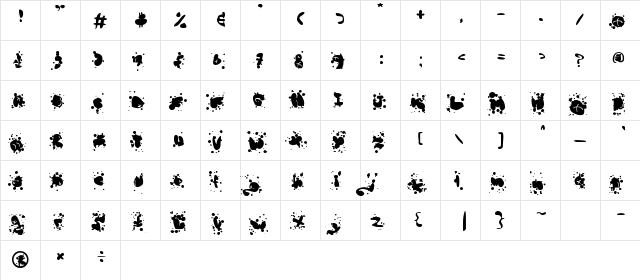
Mad Bubbles Regular
| Designer | Dhendiawan Dwiatma |
Design Context for Mad Bubbles Typeface
Mad Bubbles has an approachable, lighthearted character — its loose, expressive forms are well-suited to children's content, casual branding, and fun-first design.
Great for children's books, toy packaging, family event branding, and casual consumer-facing design.
Font Pairing: Pairs well with a rounded or humanist sans for body copy, maintaining the friendly tone without relying on Mad Bubbles to carry extended reading.
Pro Tip: Avoid using Mad Bubbles for long passages of text — it works best for headlines, labels, and short calls to action.